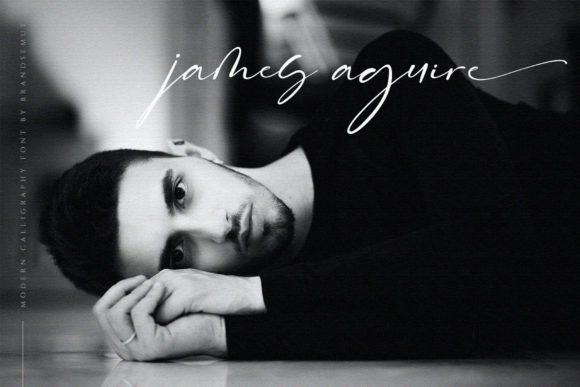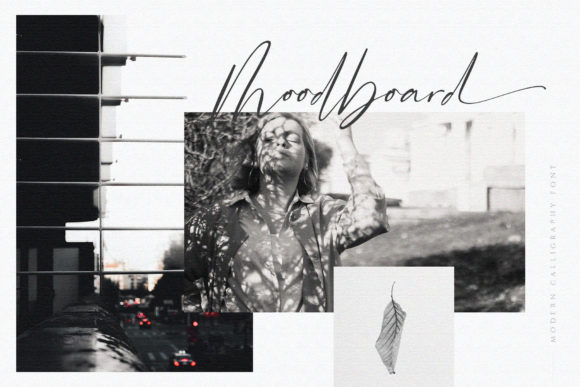
Rossie Font
db-ku.com - Script & Handwritten -- Rossie is a modern calligraphy font. It features stunning swashes and ligatures. Fall in love with its authentic feel and use it to create gorgeous wedding invitations, beautiful stationary art, eye-catching social media posts, and cute greeting cards.